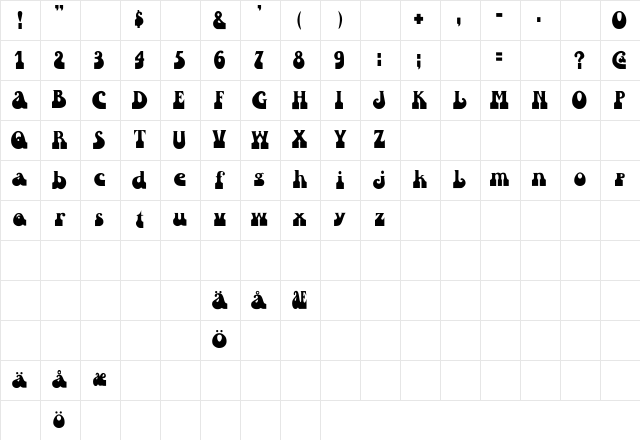
LeadFoote Regular
Design Context for LeadFoote
LeadFoote is a composed and adaptable typeface that performs quietly and consistently across a wide range of design contexts.